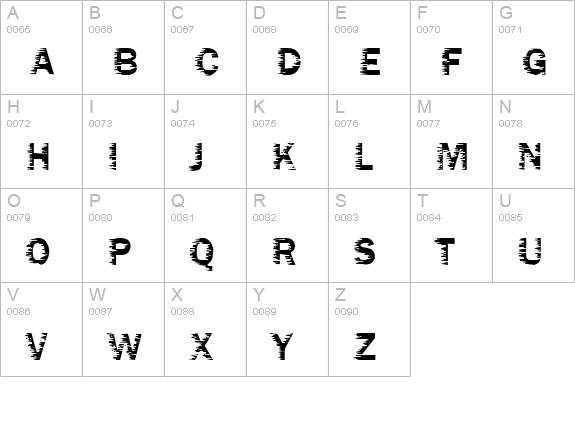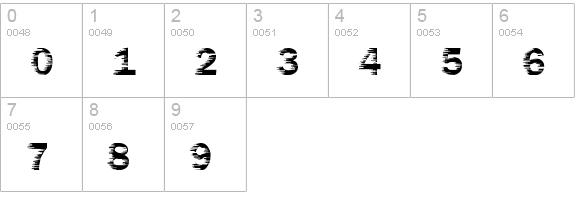
Funky01-Bold Font Details
Funky01-Bold is a strong, high-contrast variant in the Funky01 typeface family \xE2\x80\x94 well suited to headlines, attention-grabbing titles, and strong calls-to-action.
Funky01-Bold font is a vibrant and energetic typeface that exudes a sense of fun and playfulness. With its bold and dynamic design, this font is perfect for making a statement and grabbing attention. The unique characters and quirky details give this font a funky and modern look that is sure to stand out. Whether you're working on a poster, logo, or any other design project, Funky01-Bold font will add a touch of personality and style. Best of all, Funky01-Bold font is available for free download at FontsMarket.com. So go ahead and add this eye-catching font to your collection today and let your creativity shine!